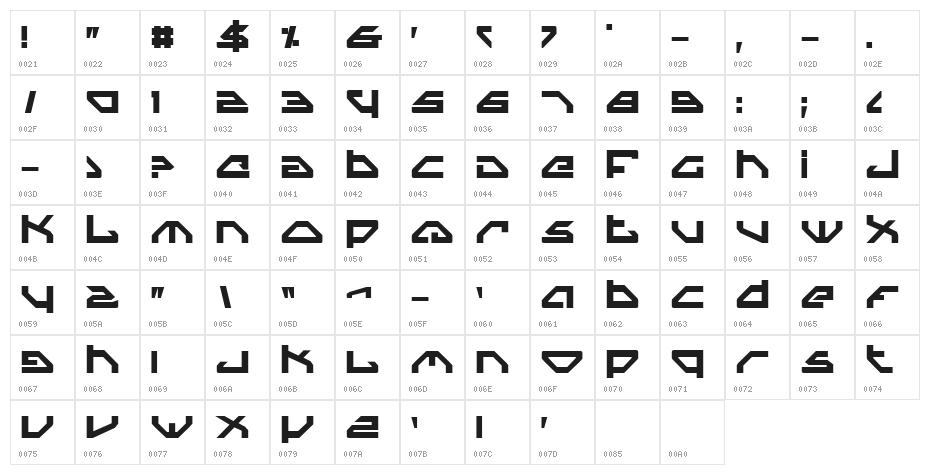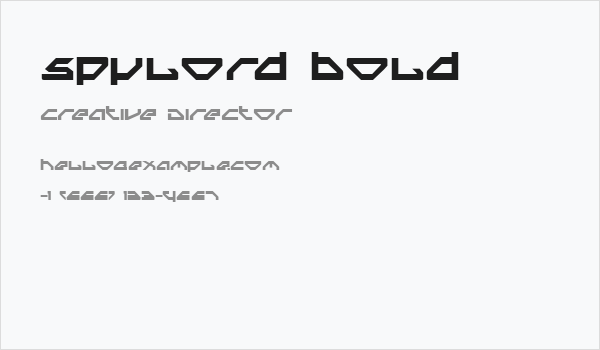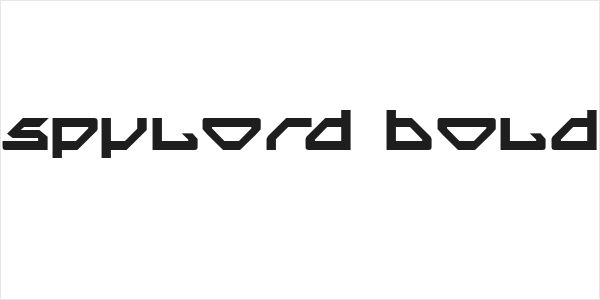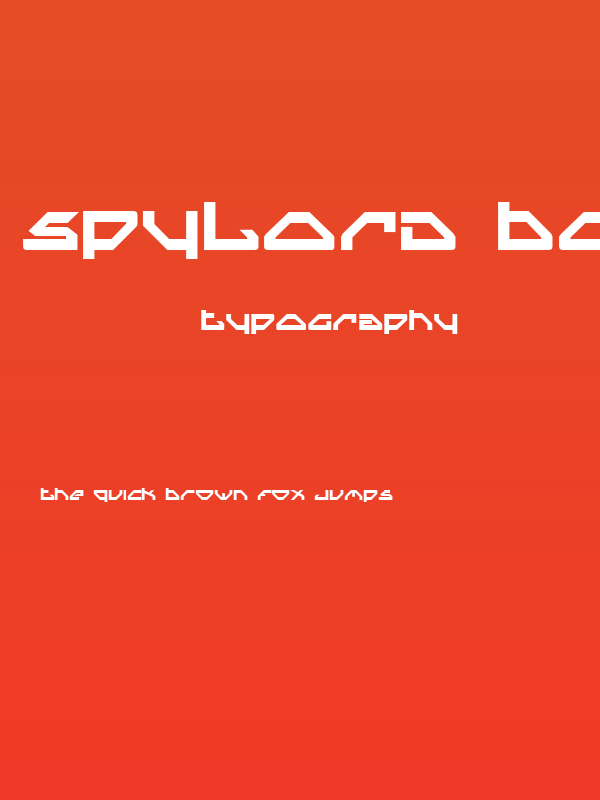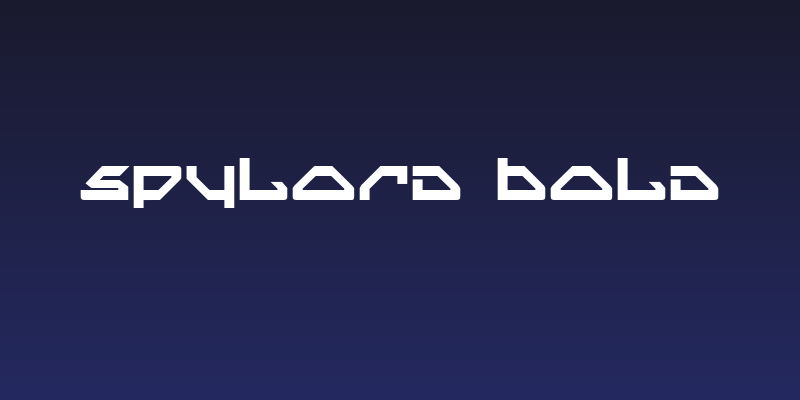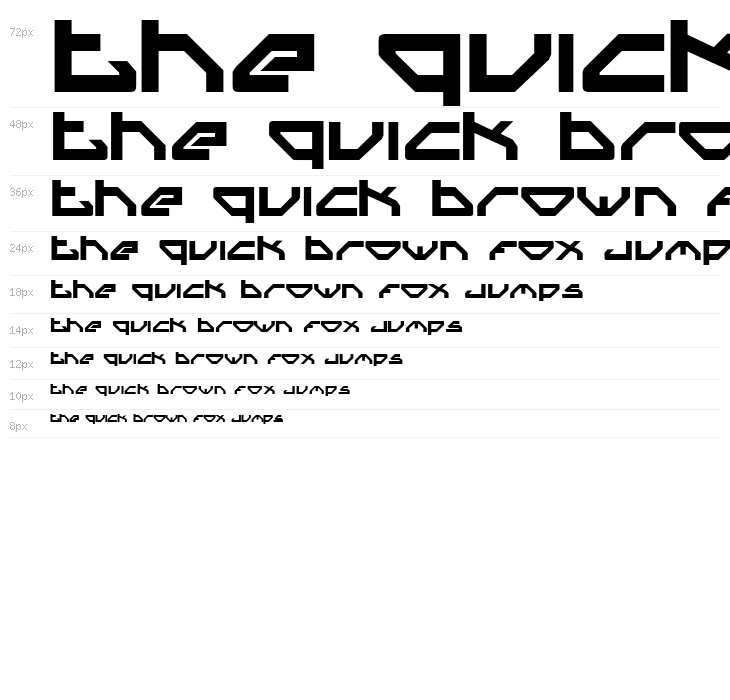
Spylord Bold Font
Spylord Bold Description
This font features a bold, geometric design with sharp angles and a futuristic aesthetic. The characters are constructed with a series of straight lines and angular cuts, giving it a distinct, tech-inspired look. The uppercase and lowercase letters maintain a consistent style, with the uppercase being slightly larger and more pronounced. Numbers and special characters follow the same angular theme, ensuring uniformity across all glyphs. The font's bold weight and unique style make it stand out, ideal for projects that require a modern and edgy appearance.
| Proposed Projects | Ideal for sci-fi themed projects, technology branding, video game titles, and modern posters. |